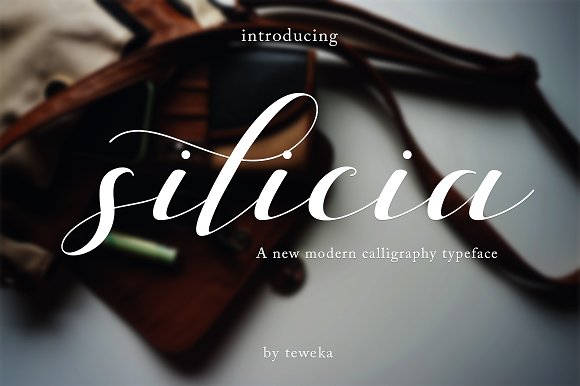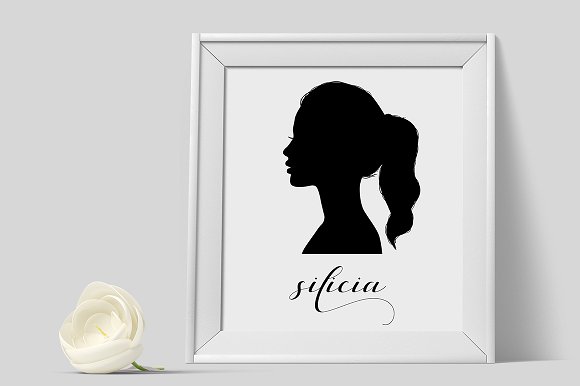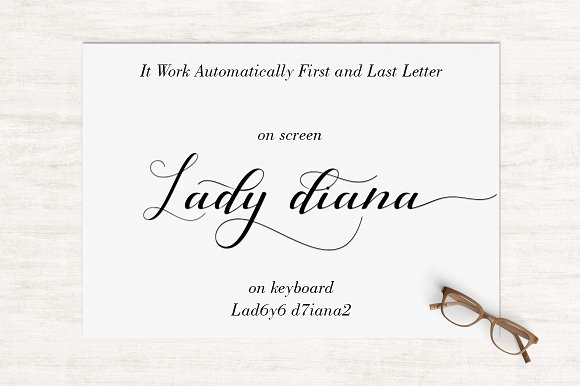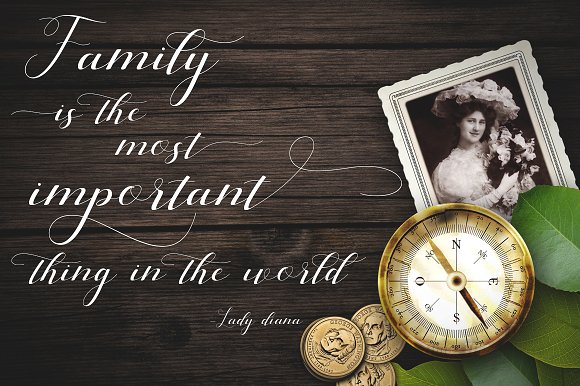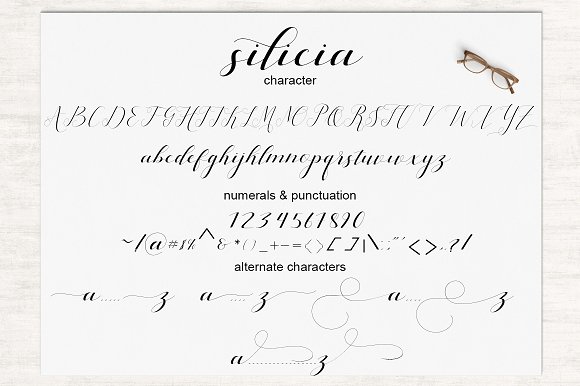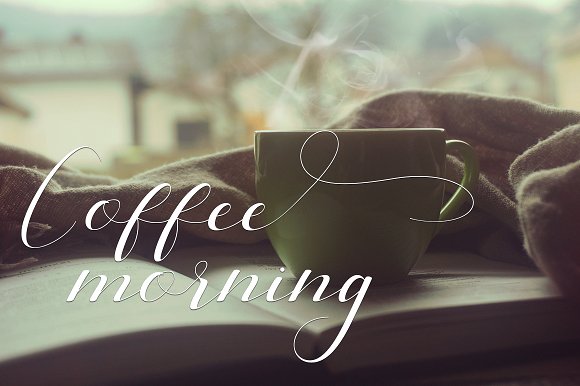
Silicia Font
About Silicia Font
Silicia is a fresh script font packed with over 300 carefully drawn glyphs.
This is the perfect font for creating personalized designs such as invites, signatures, thank you cards and photo overlays.